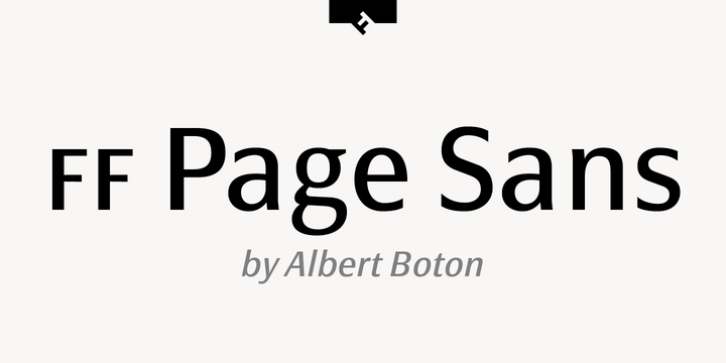
FF Page Sans was designed by Albert Boton and published by FontFont. FF Page Sans contains 8 styles and family package options.
French type designer Albert Boton created this sans FontFont in 2003.
The family has 8 weights, ranging from Light to Bold (including italics) and is ideally suited for advertising and packaging, book text, editorial and publishing as well as logo, branding and creative industries.
FF Page Sans provides advanced typographical support with features such as ligatures, small capitals, alternate characters, case-sensitive forms, fractions, and super- and subscript characters.
It comes with a complete range of figure set options – oldstyle and lining figures, each in tabular and proportional widths.
This FontFont is a member of the FF Page super family, which also includes FF Page Serif.